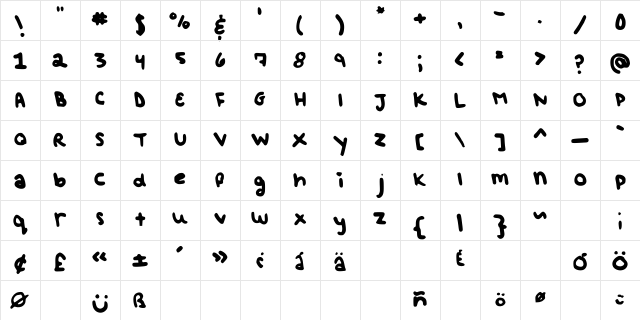
baby dont worry bout it! Medium
Design Context for baby dont worry bout it!
baby dont worry bout it! is a composed and adaptable typeface that performs quietly and consistently across a wide range of design contexts.